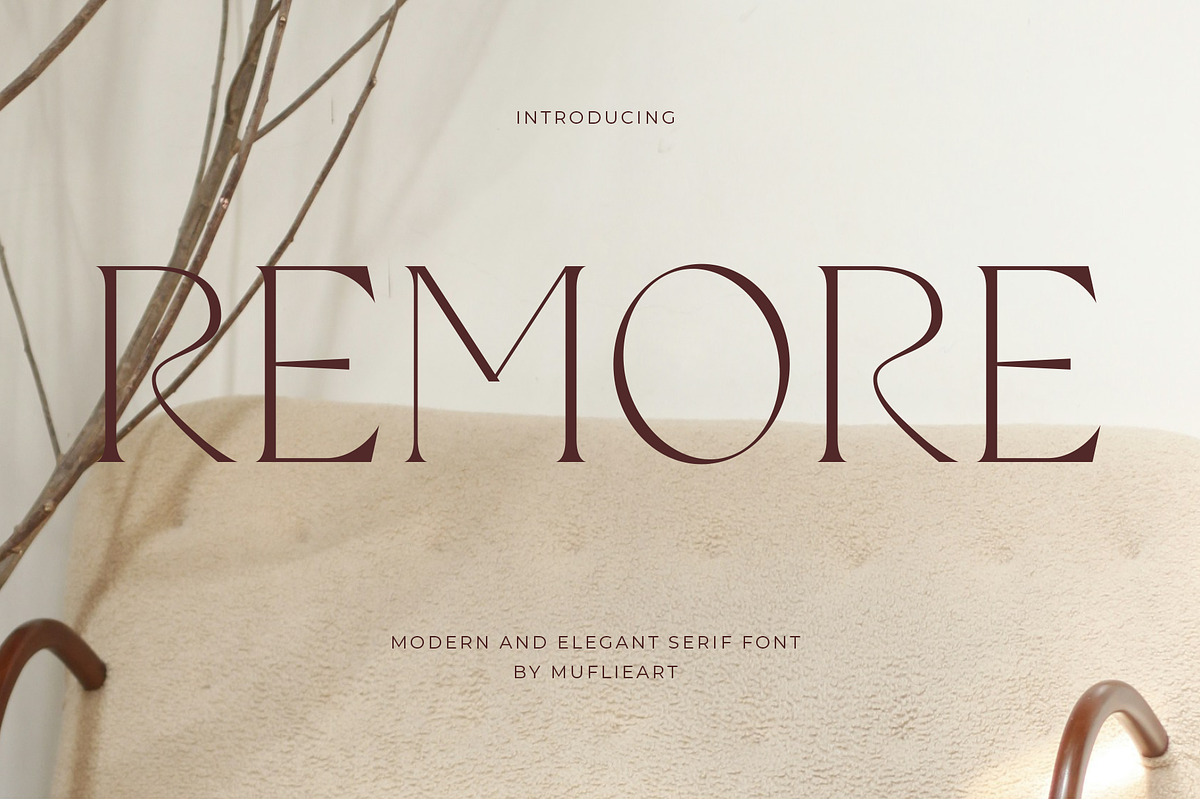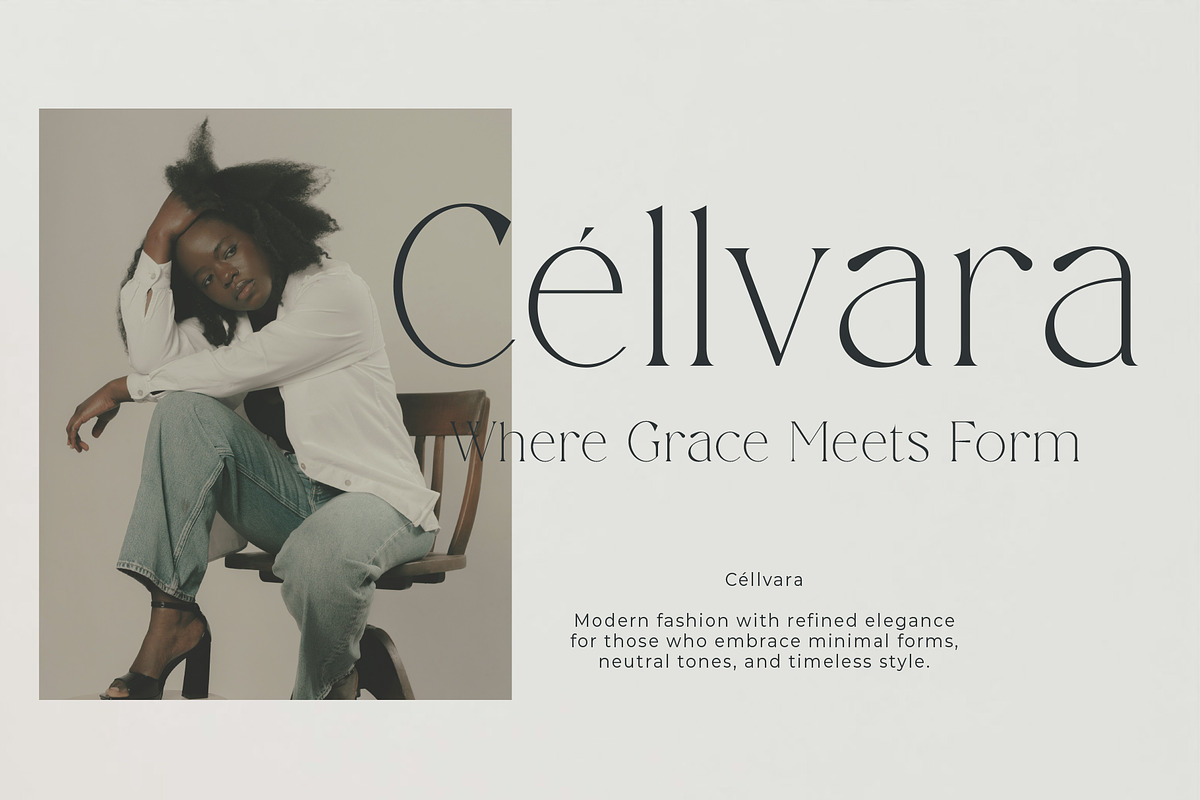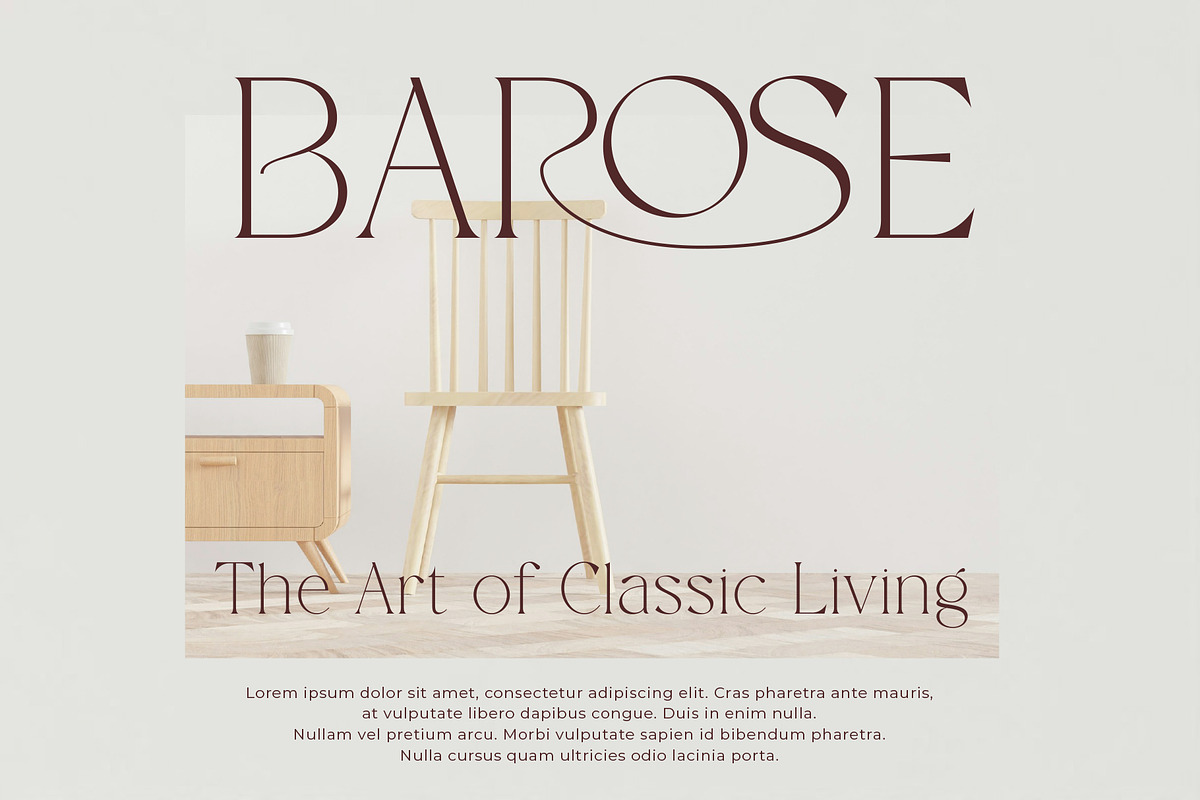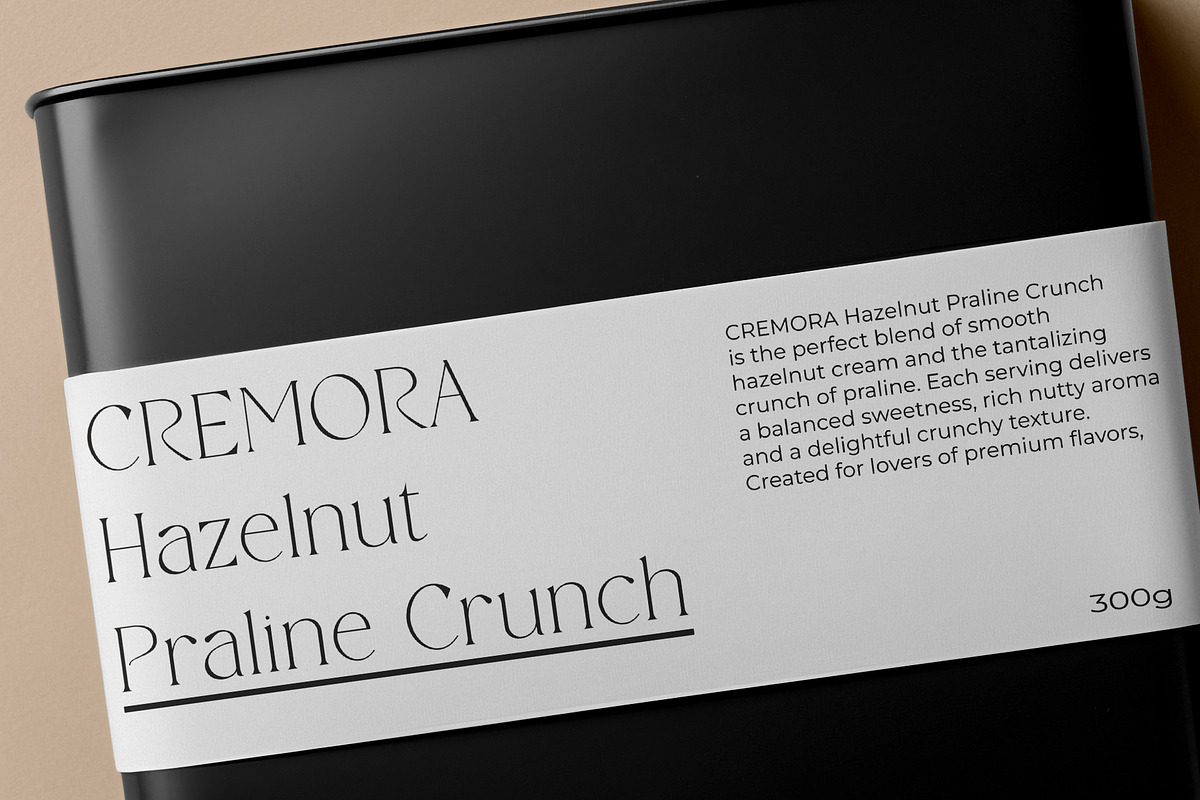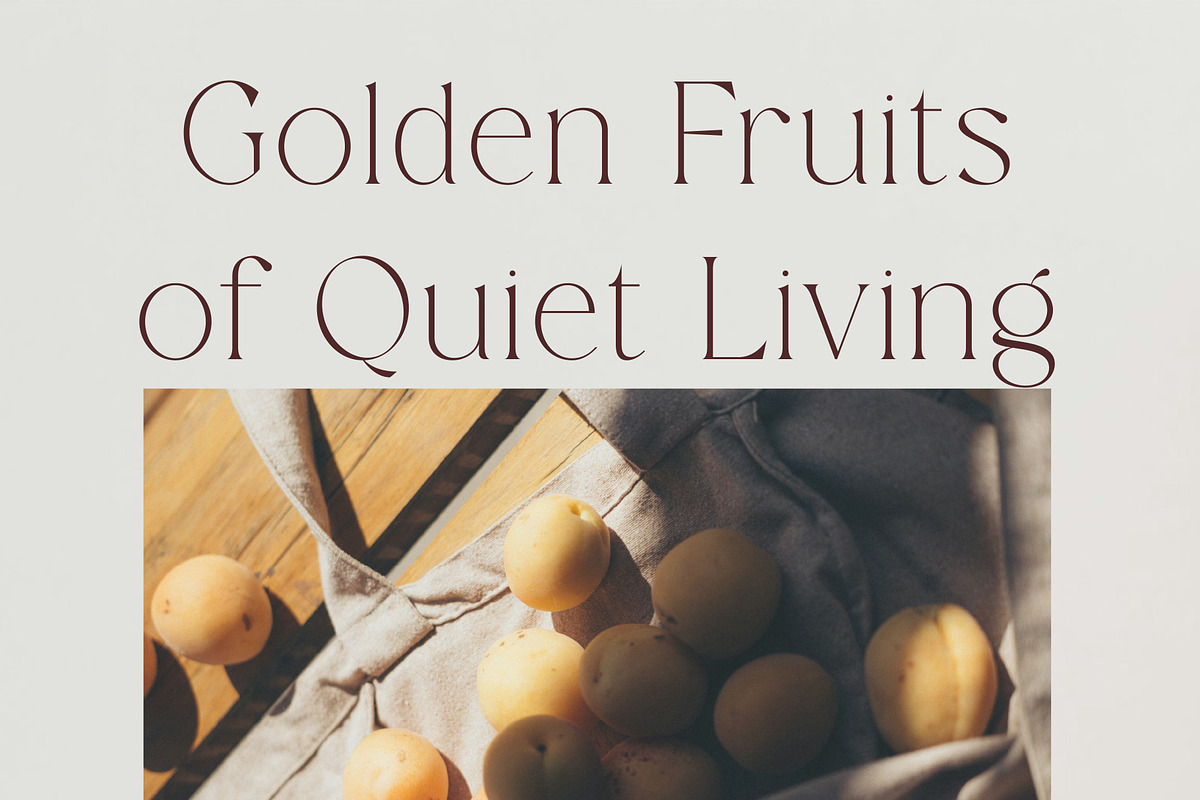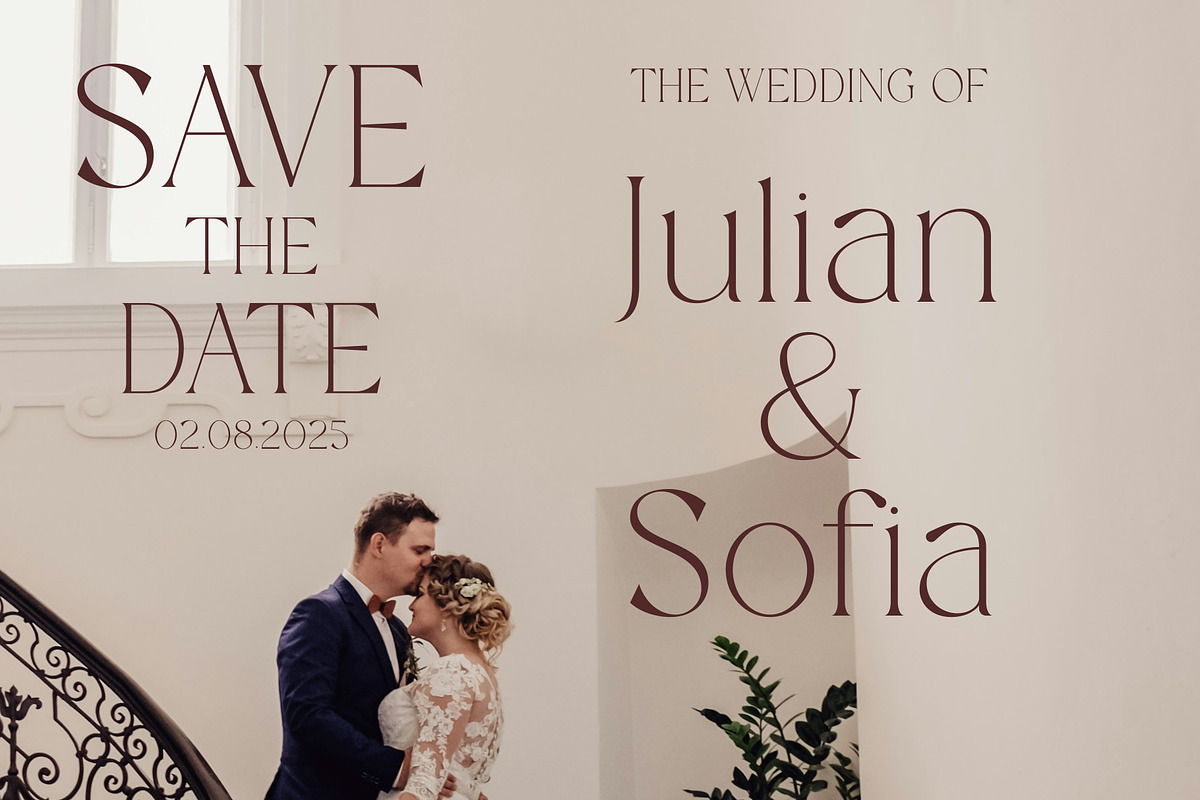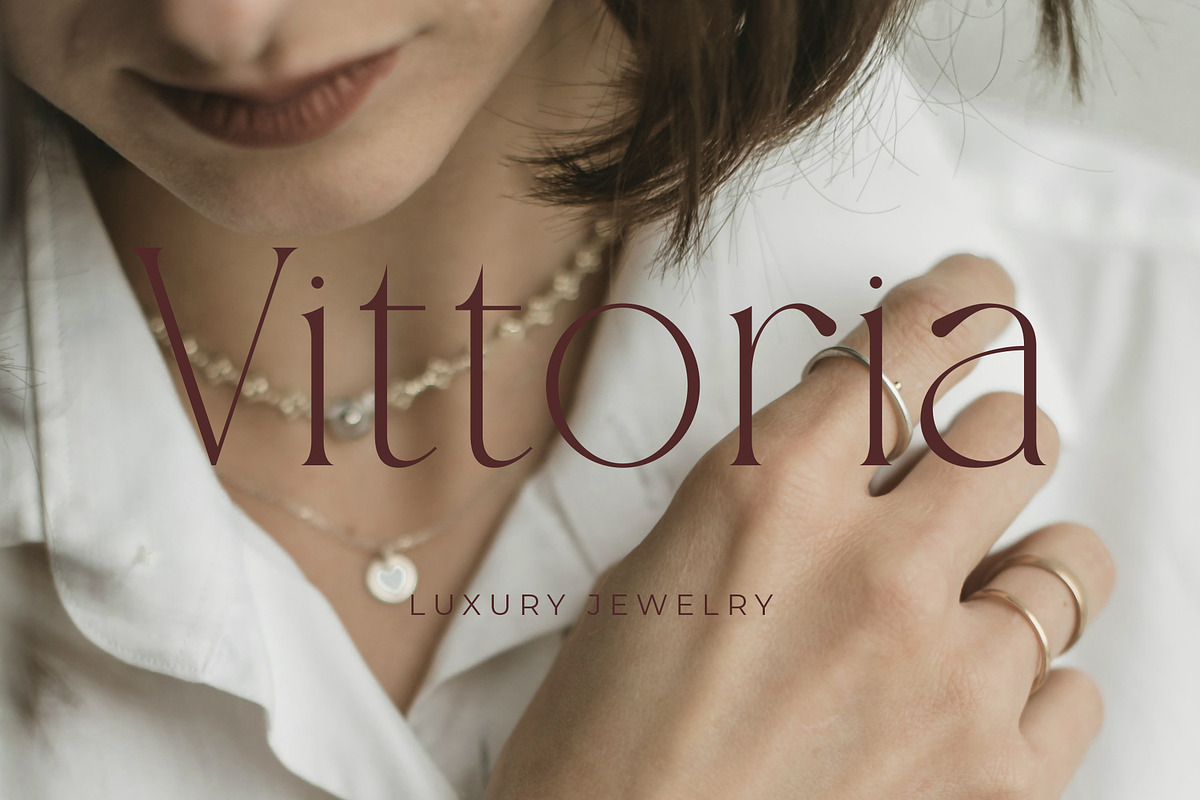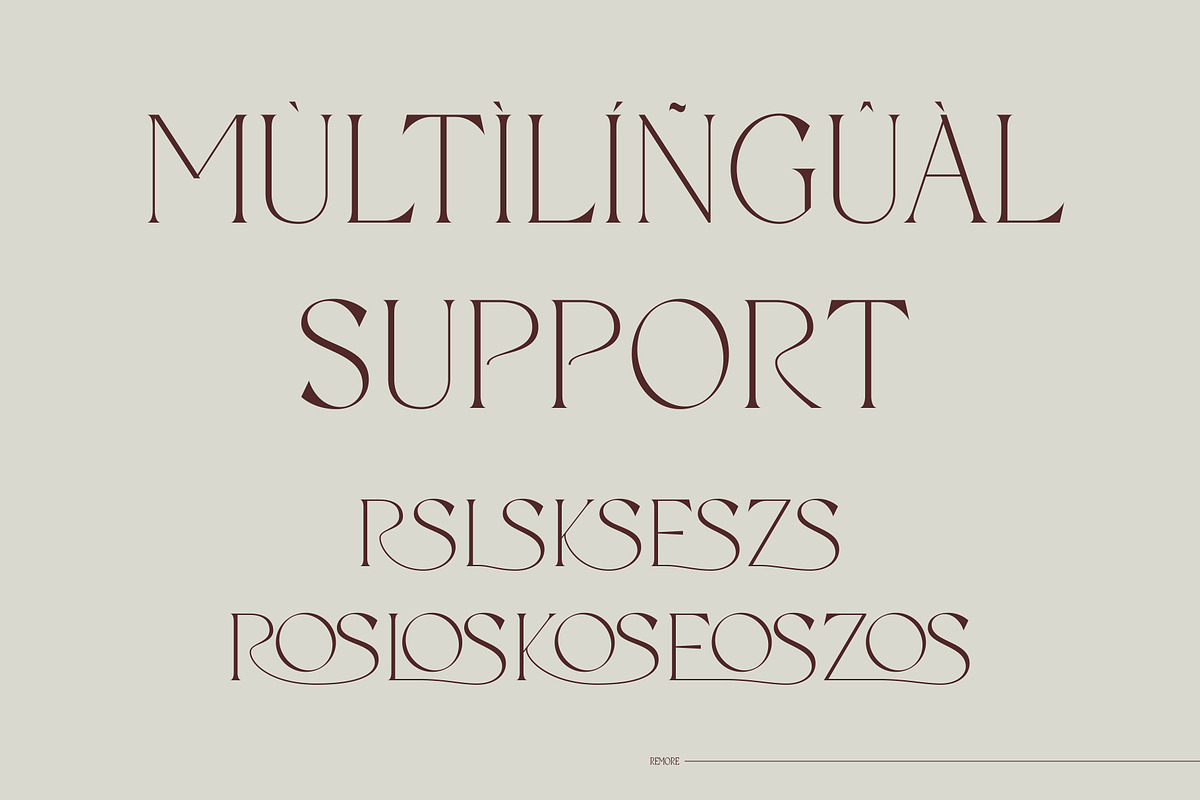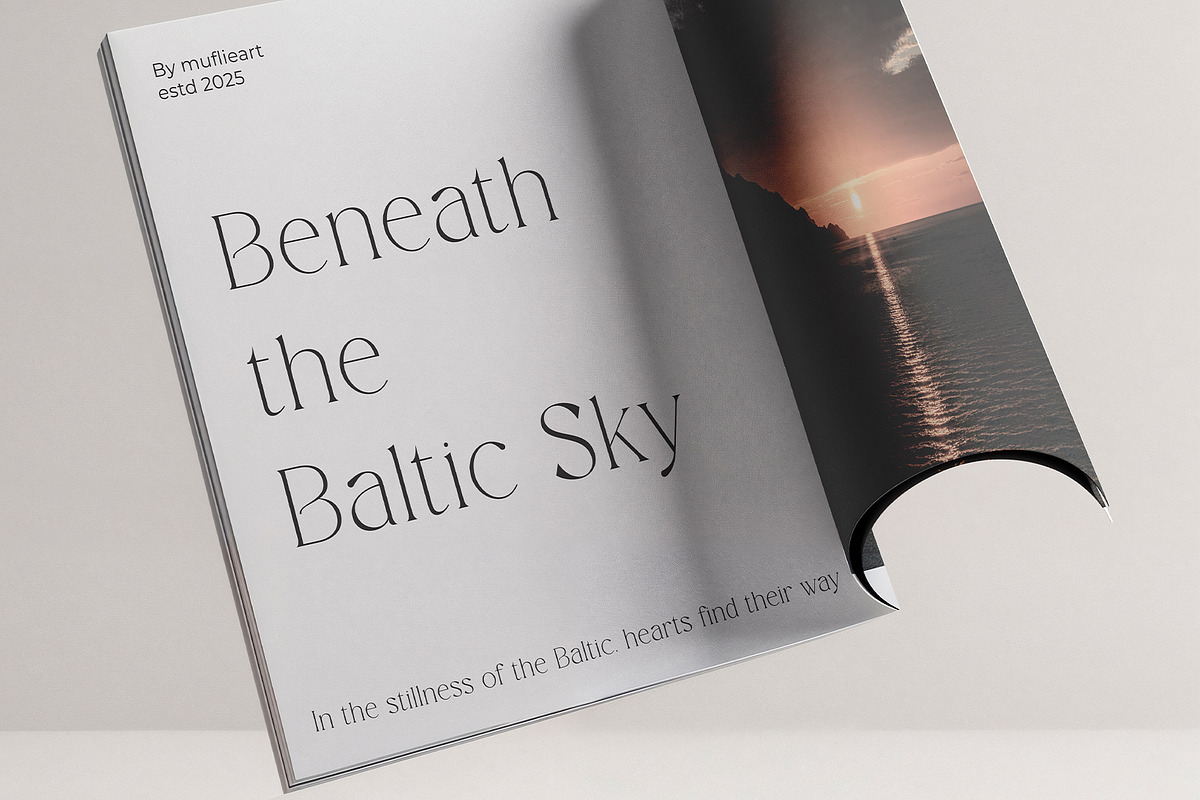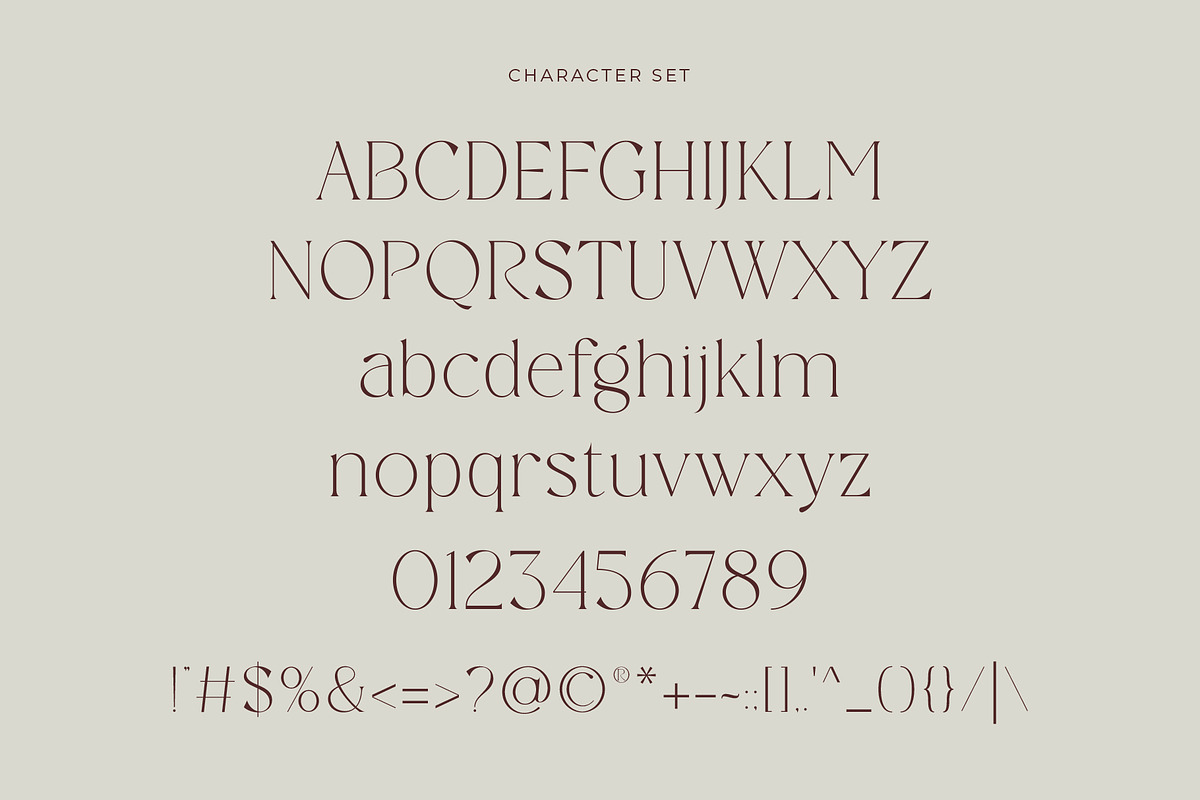
Remore | Modern And Elegant Serif
Introducing Remore the elegant, beautiful, and modern Serif. With its modern and minimalist look, Remore brings a luxurious, classy, and clean style to your projects such as websites, modern logos, brand identities, social media quotes, wedding stationery, magazines, and more!
Remore features unique and classy capital letters A to Z and also comes with unique alternates making Remore a beautiful font that can be customized for various projects and jobs you want.
Remore is perfect for: logos, brands, wedding invitations, business cards, greeting cards, posters, magazines, social media, agenda prints, and websites.
- Uppercase and lowercase letters
- Multilingual Characters
- Alternative styles and ligatures (on some fonts)